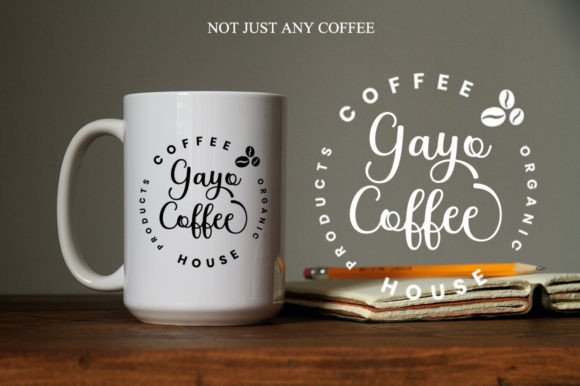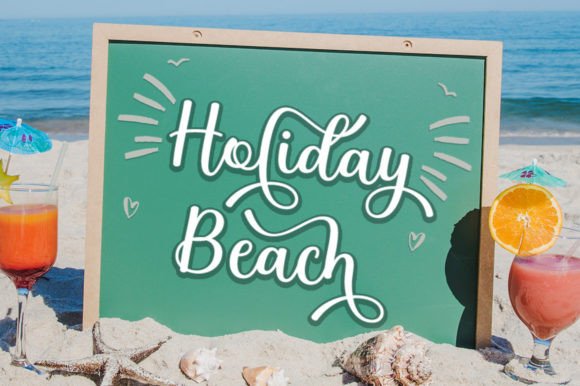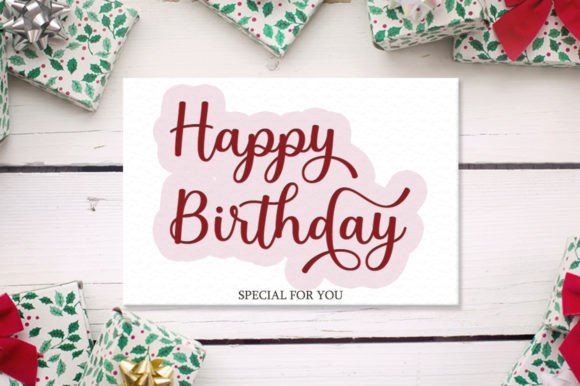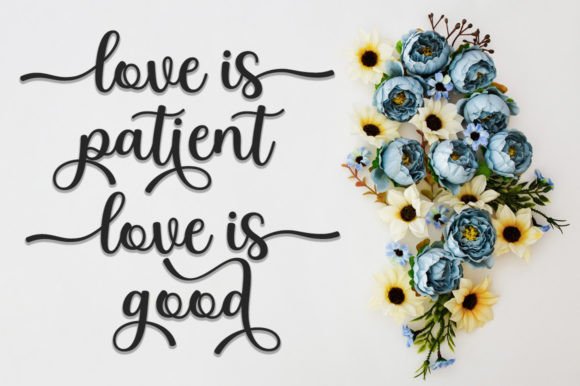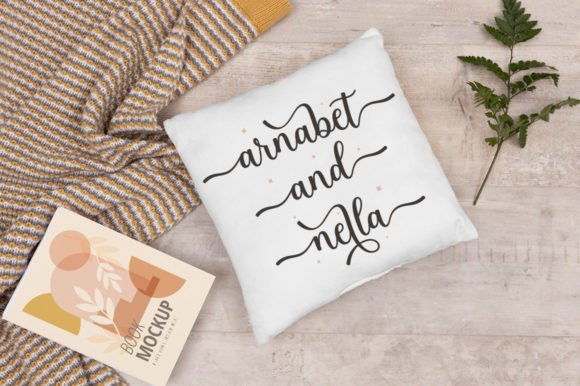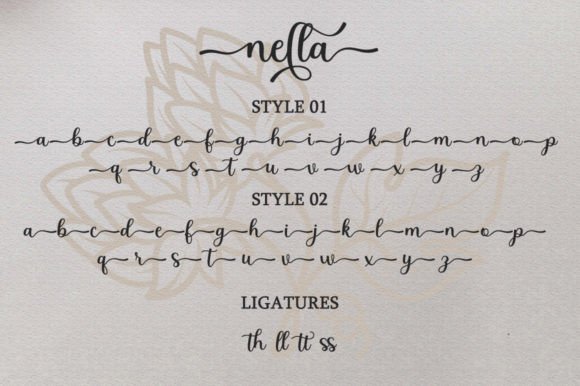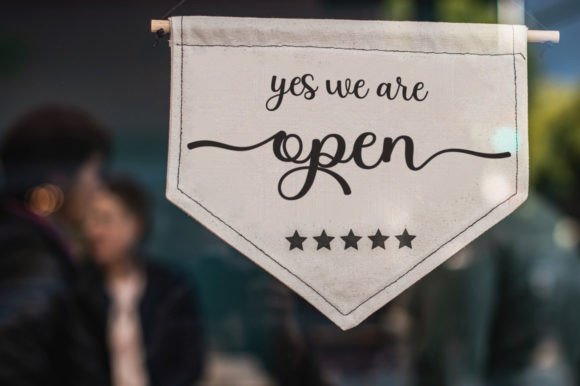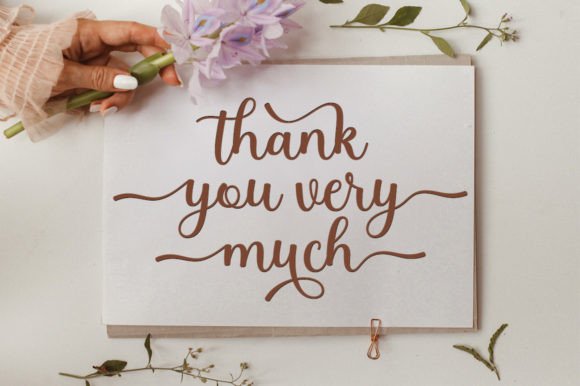
Sweet Chocolate Font
About Sweet Chocolate Font
“Sweet Chocolate” is a gorgeous handwritten script font that brings a touch of elegance and romance to your designs. This versatile script font is well-suited for a wide spectrum of applications, making it a delightful choice for greeting cards, headlines, and various other projects where a romantic feel is desired.
The handwritten script style of “Sweet Chocolate” adds a personal and artistic touch to your designs. Its fluid strokes and graceful curves create a sense of elegance that enhances the overall aesthetic. Whether used on greeting cards to convey warm sentiments or in headlines to make a bold statement, this font adapts seamlessly to different contexts.
The versatility of “Sweet Chocolate” makes it a valuable asset for a range of design projects. From wedding invitations to posters and beyond, this font is designed to add a romantic and charming feel. It becomes a key element in creating an atmosphere of sophistication and love.
Imagine “Sweet Chocolate” gracing the headlines of a wedding invitation, setting the tone for a romantic celebration. In greeting cards, its gorgeous script adds a touch of warmth and personality. The font’s adaptability makes it equally suitable for digital and print applications, ensuring that it enhances the visual appeal of your projects across various platforms.
In conclusion, “Sweet Chocolate” is a font that goes beyond being just a typeface; it’s a design companion that brings elegance and romance to your creative projects. Whether you’re working on greeting cards, headlines, or other design endeavors, let “Sweet Chocolate” be the handwritten script font that adds a touch of beauty and romance to your next project.